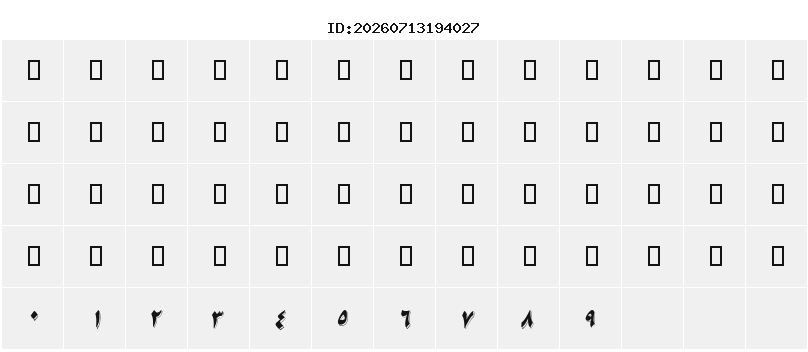
• Font Name: B Nikoo
• Font ID: Borna Nikoo Italic
• Full Font Name: B Nikoo Italic
About B Nikoo.ttf
B Nikoo.ttf is a modern, elegant sans-serif font designed for ultimate readability and visual harmony. Perfect for branding, headlines, web design, and print materials.